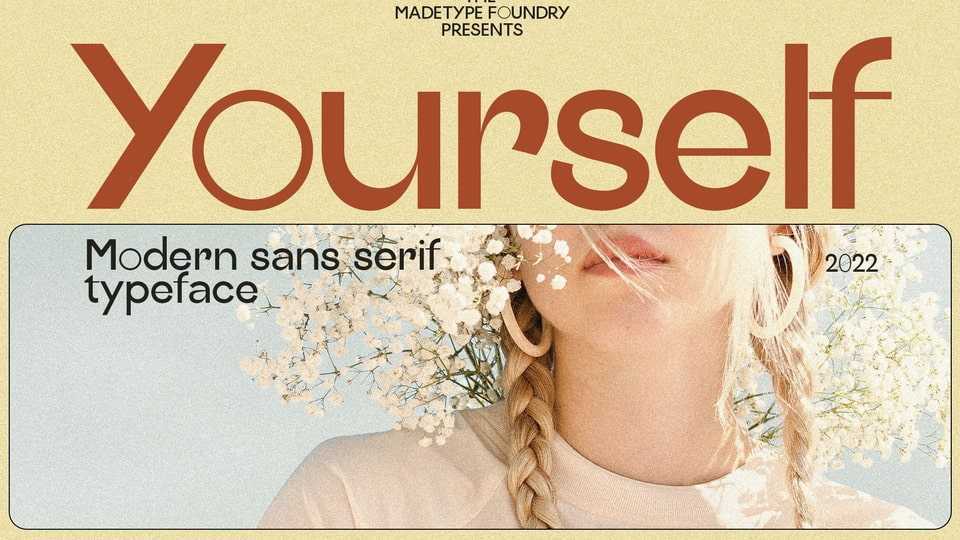
Download MADE Yourself font, a modern sans serif typeface. MADE Yourself is perfect for many project: fashion, magazines, logo, branding, photography, invitations, wedding invitation, quotes, blog header, poster, advertisements, postcard, book, websites, etc.
Designer: Made Type